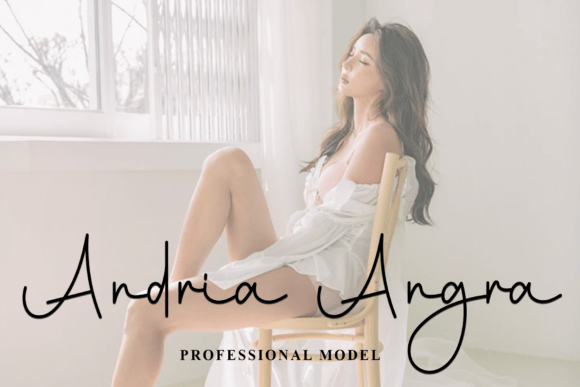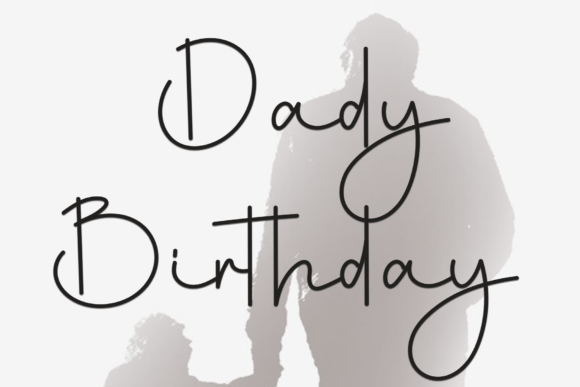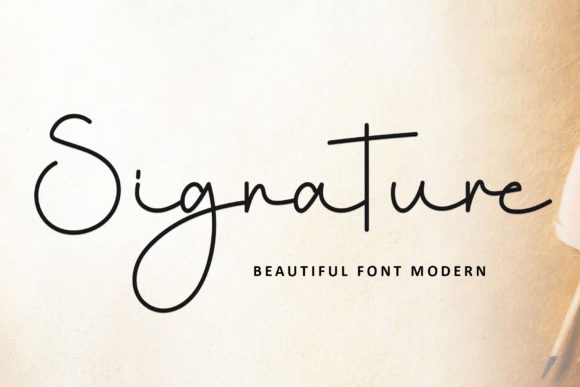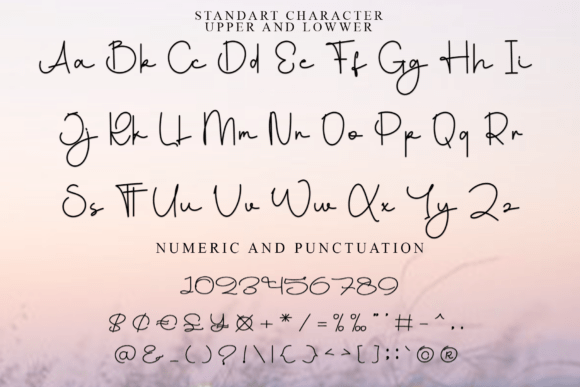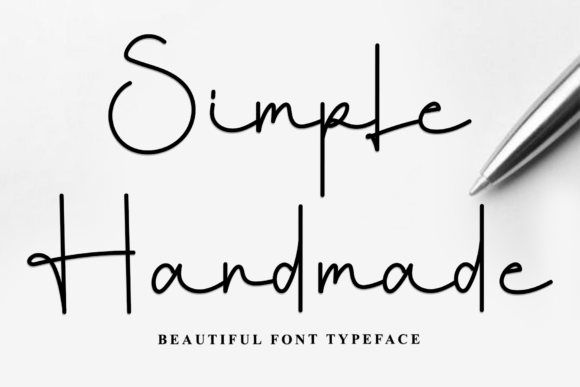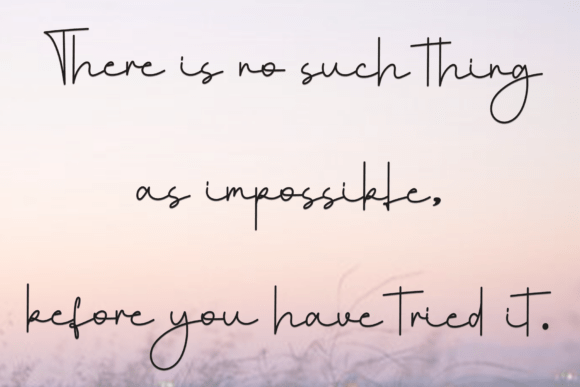
Introducing Angelia Birthday Font: The Ultimate Holiday Typeface
The holiday season is upon us, and what better way to get into the spirit than with a festive and merry typeface? Look no further than Angelia Birthday Font, a decorative and whimsical font that’s perfect for adding a touch of enchantment to your designs. In this article, we’ll dive into the world of Angelia Birthday Font and explore its features, uses, and benefits for designers and crafters.
Angelia Birthday Font is a one-of-a-kind typeface that’s specifically designed to capture the spirit of the holiday season. With its decorative elements and whimsical flair, this font is sure to add a cheerful and nostalgic ambiance to your words. Whether you’re creating greeting cards, gift tags, or holiday-themed projects, Angelia Birthday Font is the perfect choice.
Perfect for Holiday Designs
So, what makes Angelia Birthday Font so special? For starters, its decorative elements and whimsical flair make it perfect for holiday designs. The font features intricate details and ornate flourishes that evoke the magic and wonder of the holiday season. Whether you’re designing for Christmas, Hanukkah, or any other winter holiday, Angelia Birthday Font is sure to bring a touch of festive cheer to your projects.
One of the best things about Angelia Birthday Font is that it’s PUA encoded, which means you can access all of the amazing glyphs and ligatures with ease. PUA encoding allows you to access the font’s special characters and features using a keyboard shortcut, making it easy to add decorative elements to your designs. Whether you’re a seasoned designer or a crafting novice, Angelia Birthday Font is easy to use and accessible.
Use Angelia Birthday Font for:
- Greeting cards: Create festive and personalized greeting cards for the holiday season.
- Gift tags: Add a touch of whimsy and charm to your gift tags with Angelia Birthday Font.
- Holiday-themed projects: From invitations to party decorations, Angelia Birthday Font is perfect for any holiday-themed project.
- Digital crafts: Use Angelia Birthday Font to create digital crafts, such as printable art and planners.
Why Choose Angelia Birthday Font?
So, why choose Angelia Birthday Font over other holiday typefaces? Here are just a few reasons:
- Unique and festive design: Angelia Birthday Font features a one-of-a-kind design that’s sure to stand out.
- Easy to use: With PUA encoding, accessing the font’s special characters and features is easy.
- Versatile: Angelia Birthday Font can be used for a wide range of holiday designs and projects.
- Nostalgic ambiance: The font’s whimsical flair and decorative elements evoke a sense of nostalgia and holiday cheer.
Tips for Using Angelia Birthday Font
Here are a few tips for getting the most out of Angelia Birthday Font:
- Experiment with different sizes and colors to find the perfect look for your design.
- Use the font’s special characters and features to add decorative elements to your designs.
- Pair Angelia Birthday Font with other holiday-themed fonts and graphics for a cohesive look.
- Don’t be afraid to get creative and try new things – Angelia Birthday Font is perfect for experimenting with different design ideas.